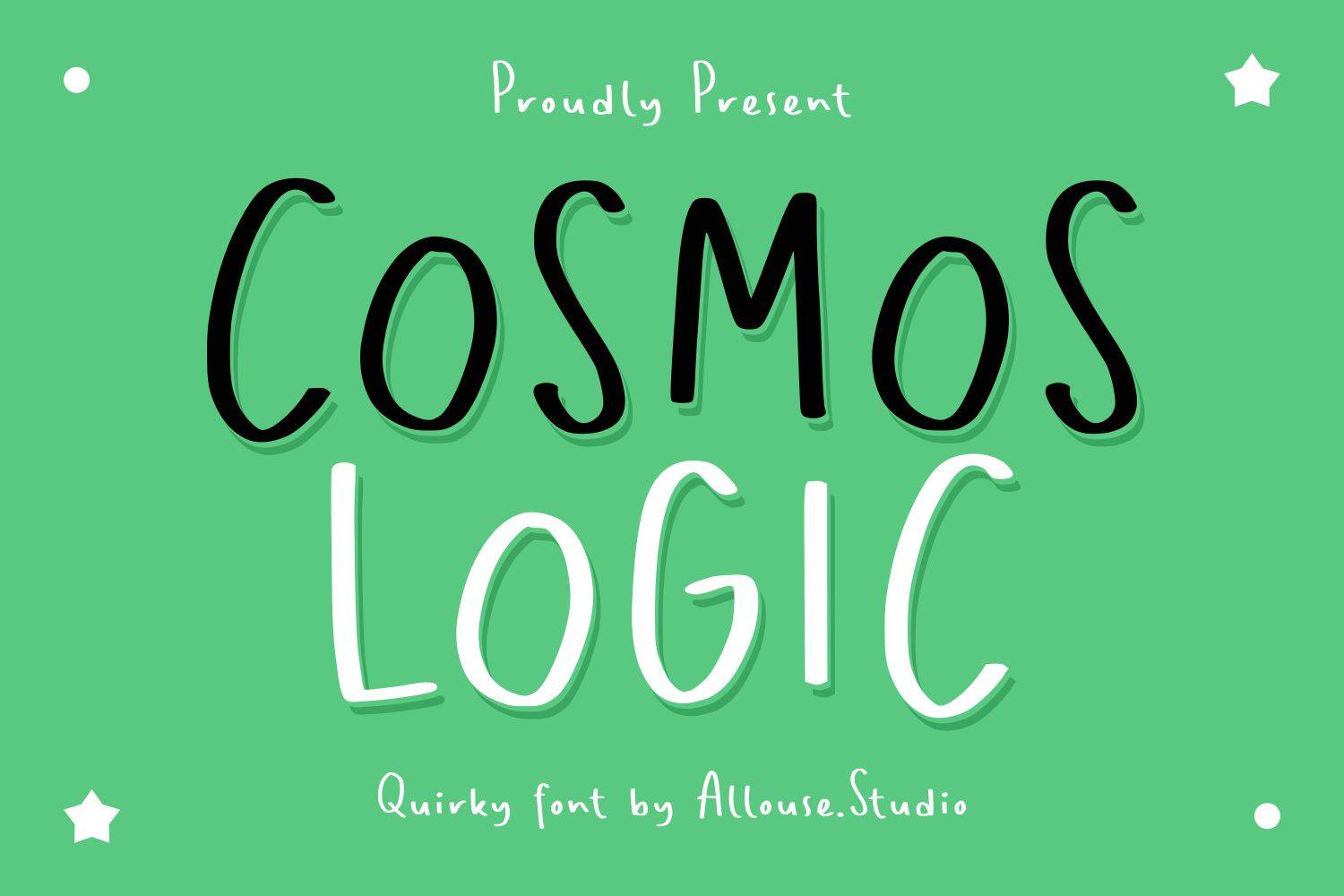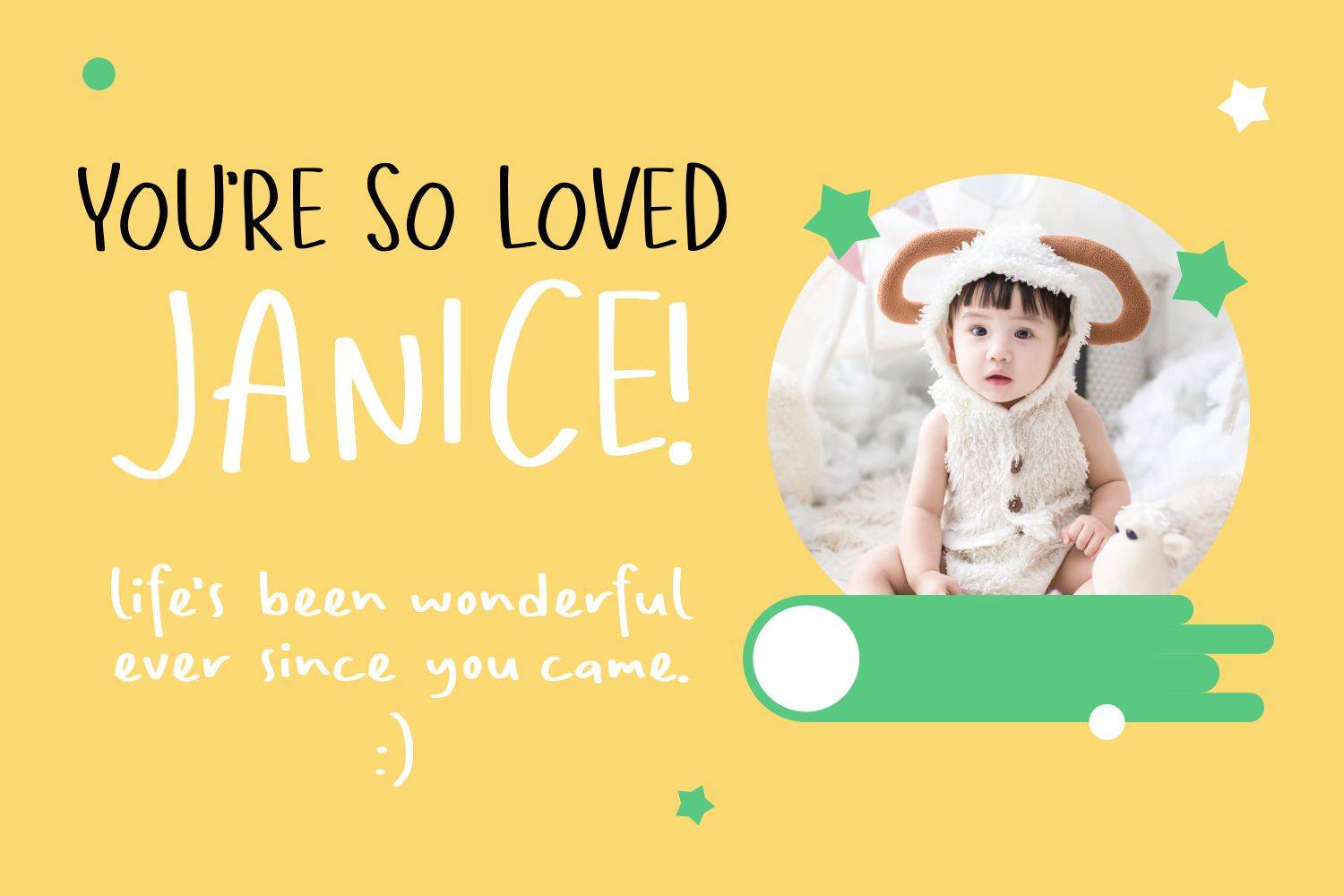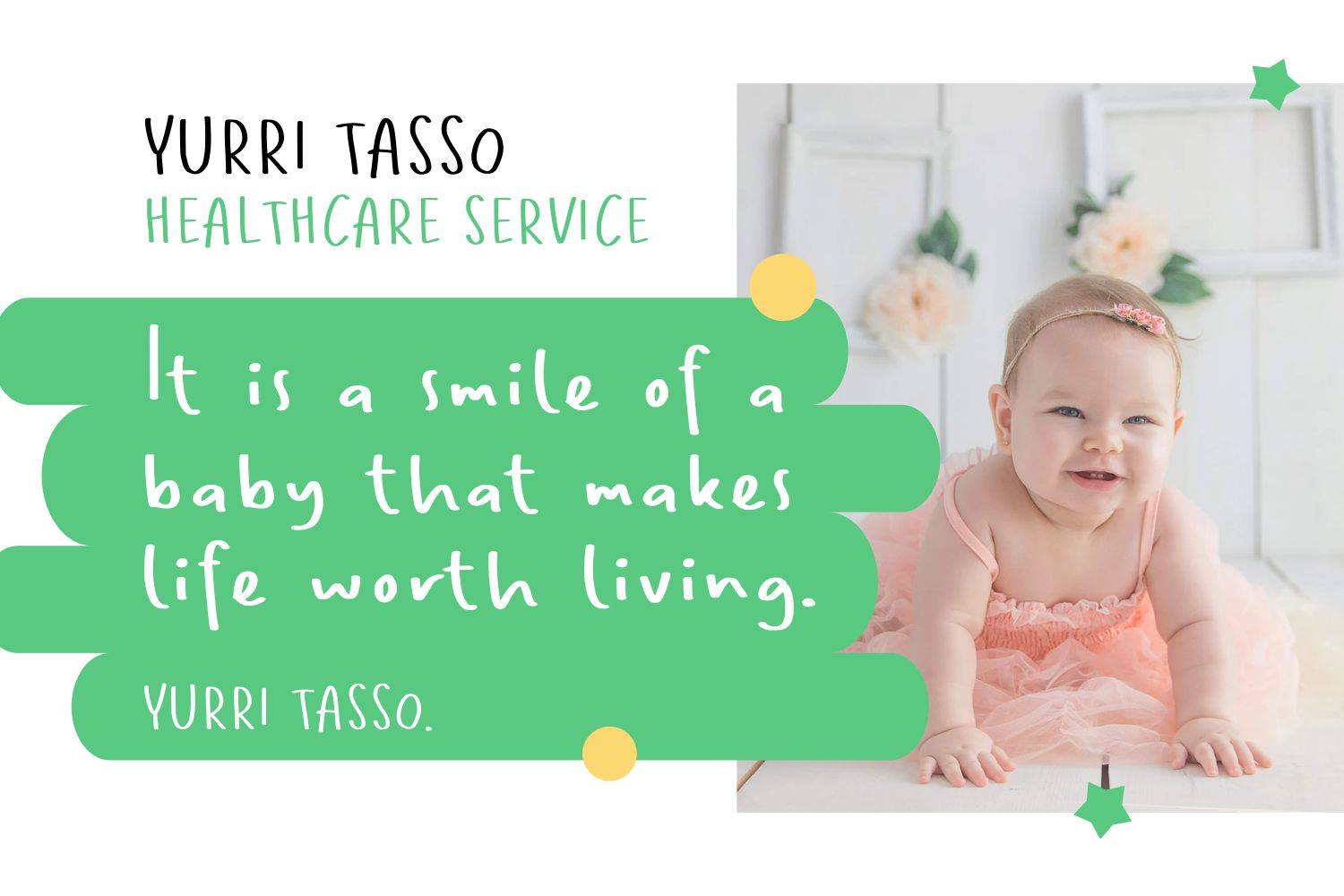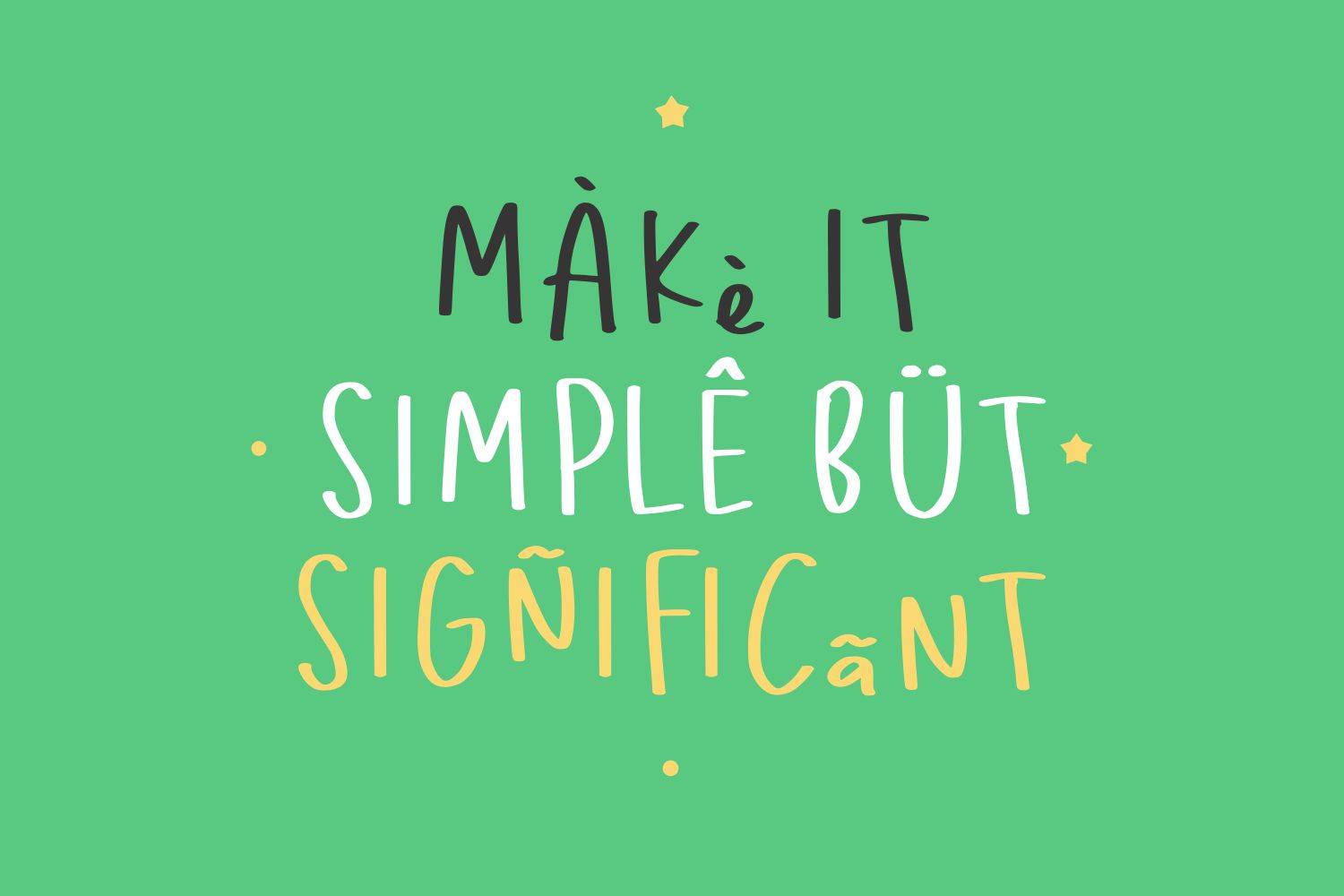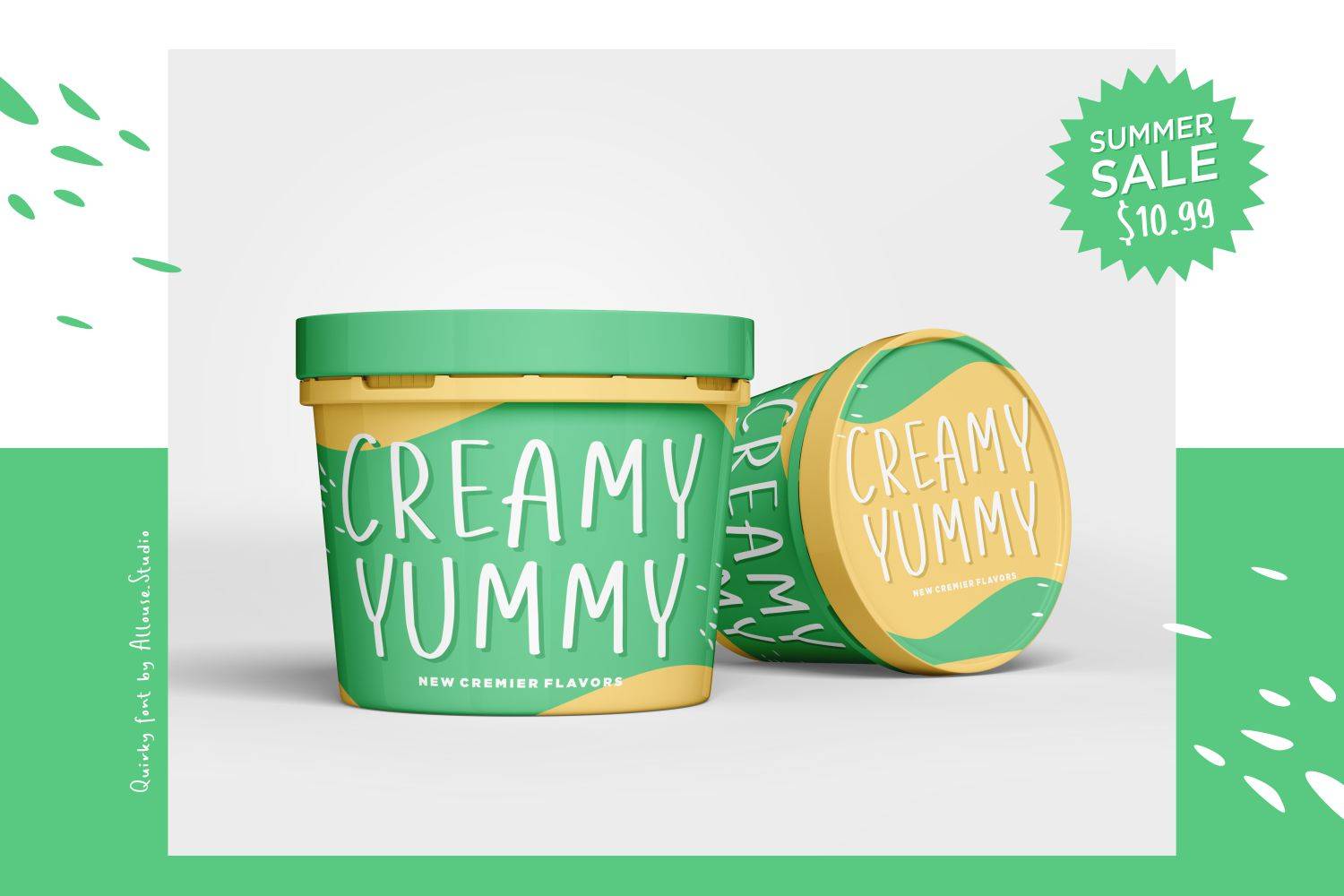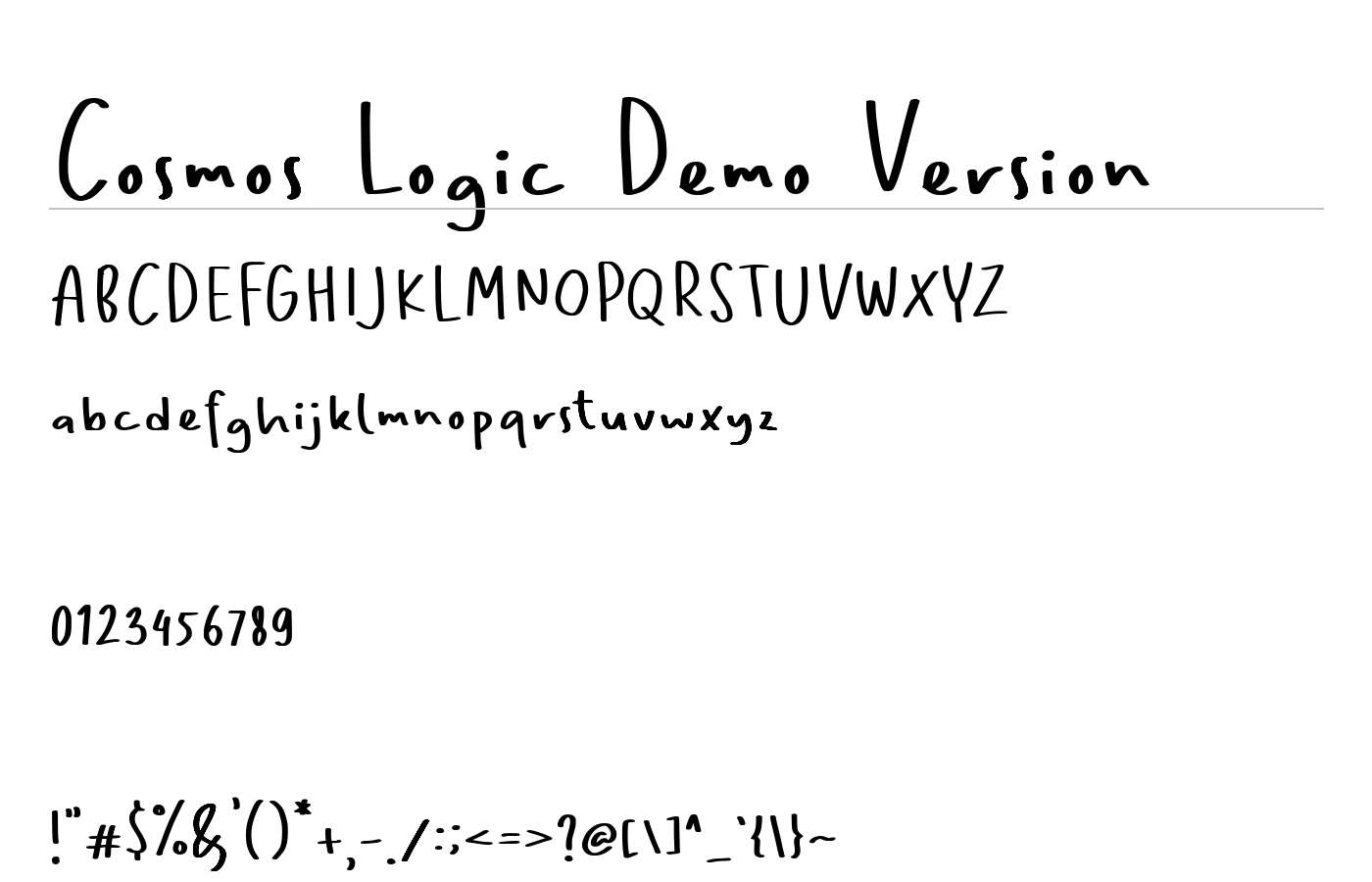
Cosmos Logic is a casual handwritten sans serif font characterized by its tall, narrow letterforms and lively, uneven strokes, giving it a distinctly organic and friendly vibe. Its clear, playful design works well for informal branding, creative projects, and personal communications where a warm, approachable tone is desired. This font shines in headlines, logos, and packaging that aim to convey authenticity and creativity.
Cosmos Logic Font
About Cosmos Logic Font